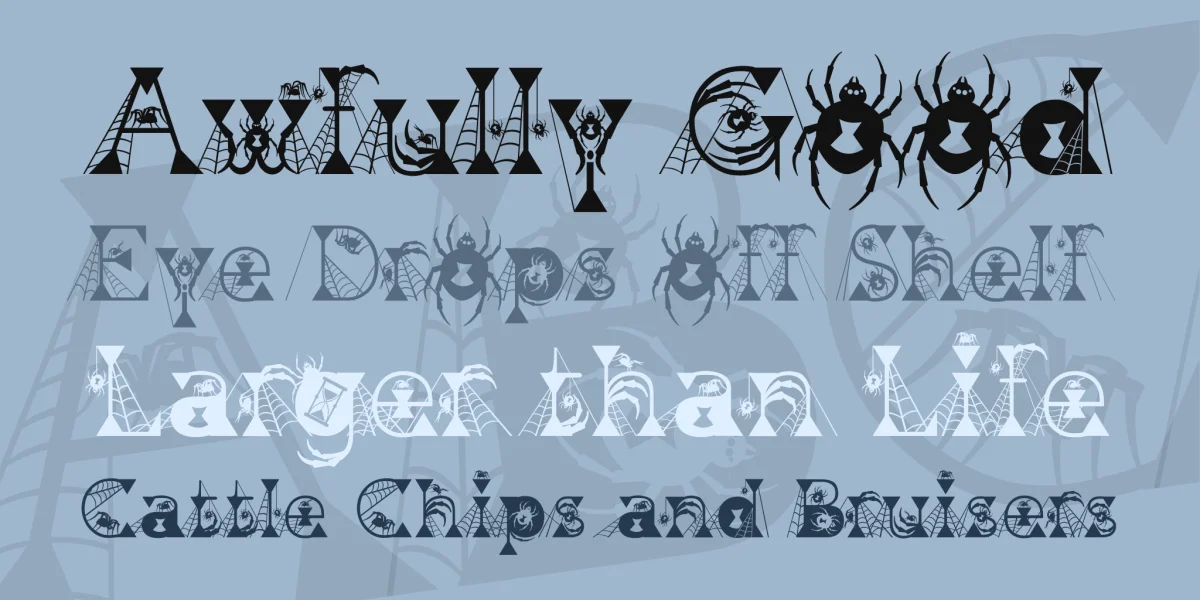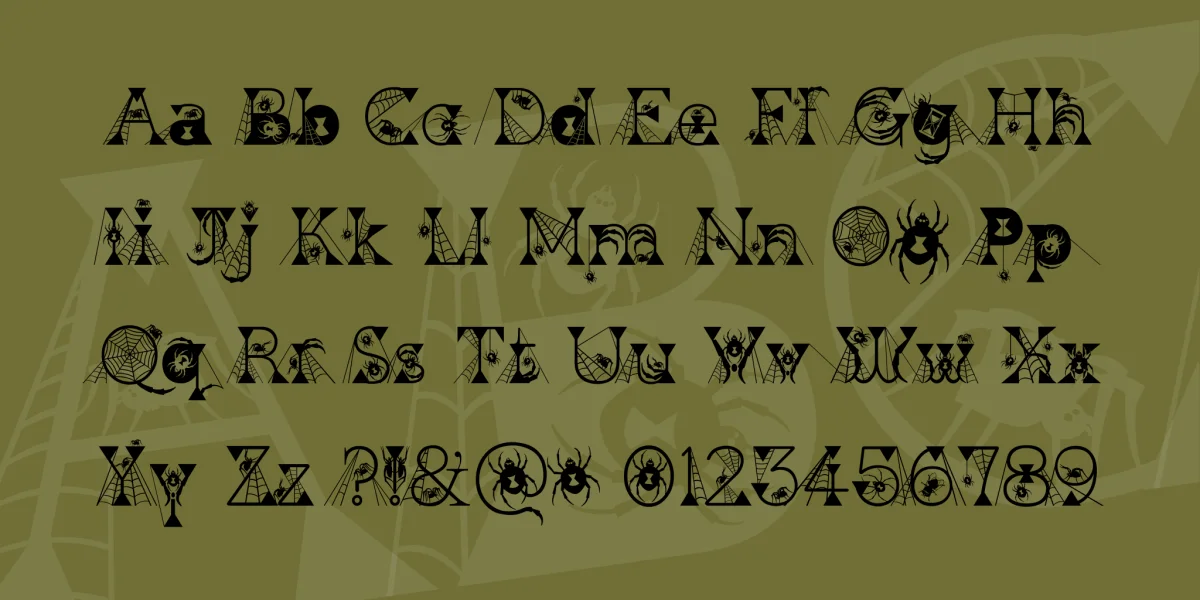
This font started out as something entirely different - called 'Elspeth' - don't know why, but there will probably be a Kingthings Elspeth at some point... As I began my process, cobwebs and spiders kept turning up - it may have been around Halloween. I love spiders because I have always disliked flies - well it makes sense to me, and I leave a spider ladder over the edge, when there's a little eight legged friend in the bath... (One of these days I will wake up helplessly spun in silk and will realise, all too late, my terrible error.)